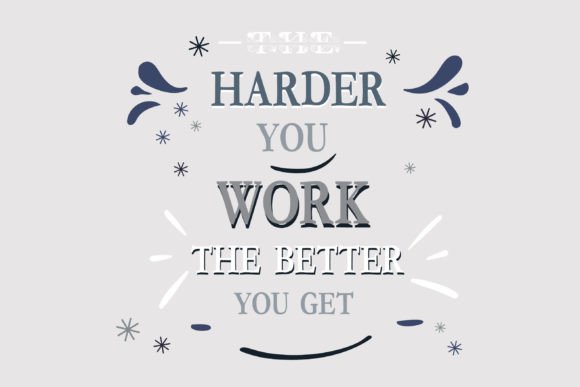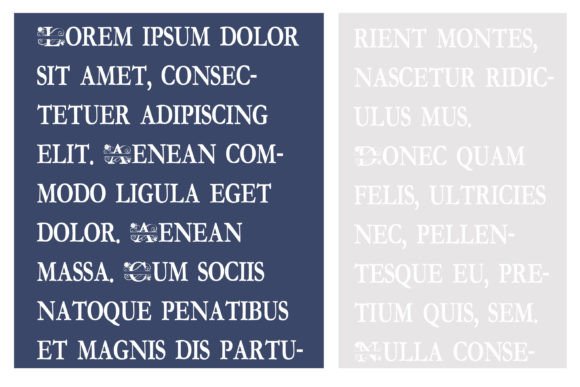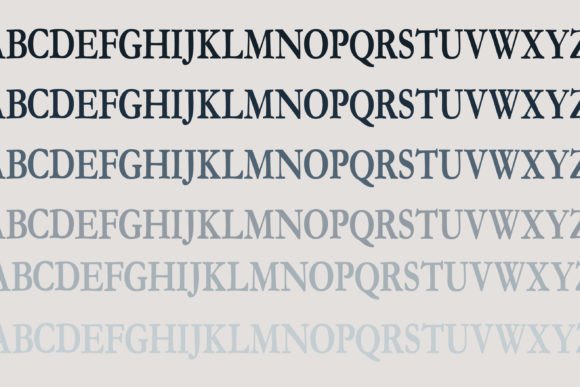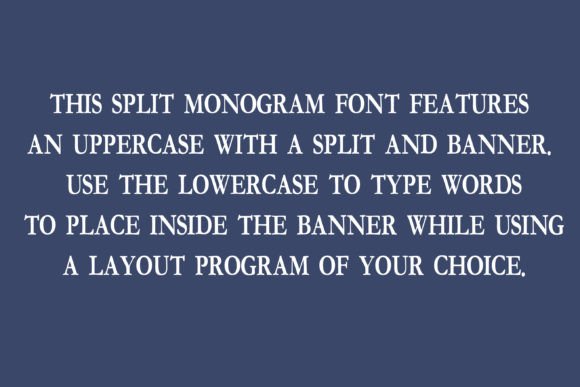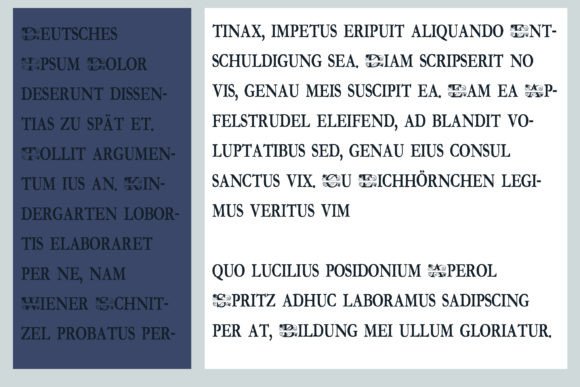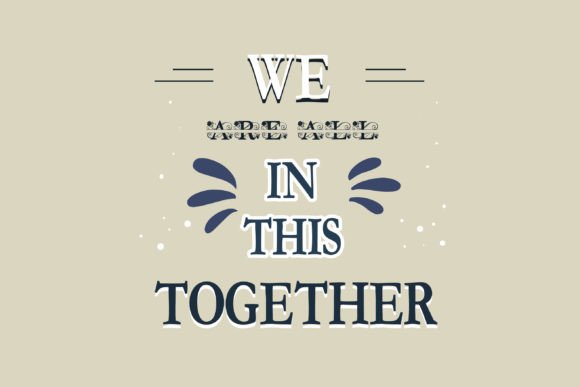
Introduction to Rose Monogram Banner Font
Do you remember the excitement of brainstorming a new creative project? The rush of ideas, the thrill of experimentation, and the satisfaction of bringing your vision to life? For many designers, this moment is a regular occurrence, but it’s often the little details that make a project truly special. That’s where the Rose Monogram Banner Font comes in – a beautiful, versatile font that can elevate any design to new heights.
As a valuable addition to any designer’s library, the Rose Monogram Banner Font offers a unique combination of style and functionality. Its split monogram design allows for seamless integration of text, making it perfect for creating custom banners, invitations, and other design elements. With a transparent background and high-quality design, this font is a must-have for any creative project.
Key Features of Rose Monogram Banner Font
- High-quality design resource ideal for creative projects, such as wedding invitations, baby showers, and other special events.
- Unique, elegant monogram design featuring a rose motif, perfect for adding a touch of sophistication to your design.
- Transparent background, allowing for easy customization and versatility in your design projects.
- High-resolution design, suitable for printing and digital use, with a resolution of 300 DPI.
- Perfect for designers and crafters looking for a beautiful, high-quality monogram design to elevate their creative projects.
Honest Review: Rose Monogram Banner Font
I recently stumbled upon the Rose Monogram Banner Font while searching for a unique design resource for a creative project. After giving it a try, I must say it’s a great addition to any designer’s toolkit.
- What works well: ✨ The font is incredibly versatile and can be used for a wide range of applications, from weddings to baby showers.
- ✨ The high quality of the font is immediately apparent, with crisp lines and a beautiful, elegant design.
- ✨ The transparent background option allows for seamless integration with any design.
- ⚠️ The font may not be suitable for all types of projects, as it’s quite ornate and may not be readable in certain contexts.
Overall, I’m very impressed with the Rose Monogram Banner Font. It’s a great resource for designers looking to add some elegance and sophistication to their projects. While it may have a few limitations, the benefits far outweigh the drawbacks.
Common Use Cases for Rose Monogram Banner Font
The Rose Monogram Banner Font is ideal for creating custom banners, invitations, and other design elements. Its high-quality design and transparent background make it perfect for creative projects.
To get the most out of Rose Monogram Banner Font, use it in conjunction with other design elements to create a cohesive and visually appealing design. Experiment with different colors and sizes to find the perfect look for your project.
Is the Rose Monogram Banner Font suitable for large-scale printing?
Yes, the Rose Monogram Banner Font is designed to be high-quality and scalable, making it suitable for large-scale printing applications. The font is optimized for clear readability at various sizes, ensuring that your design looks great whether it’s being printed on a small banner or a large poster.